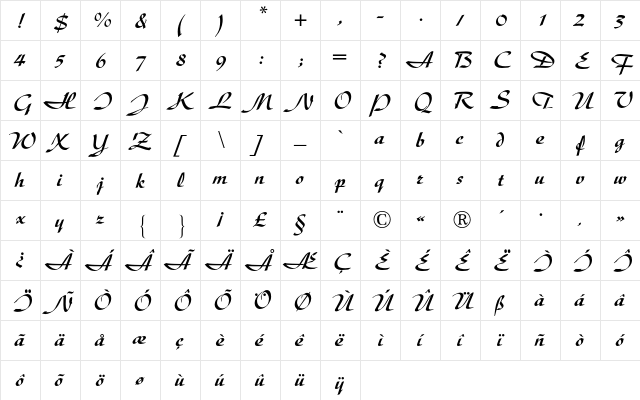
Diskus BQ Regular Font Preview
Diskus BQ Regular
Design Context for Diskus BQ Typeface
Diskus BQ is a composed and adaptable typeface that performs quietly and consistently across a wide range of design contexts.